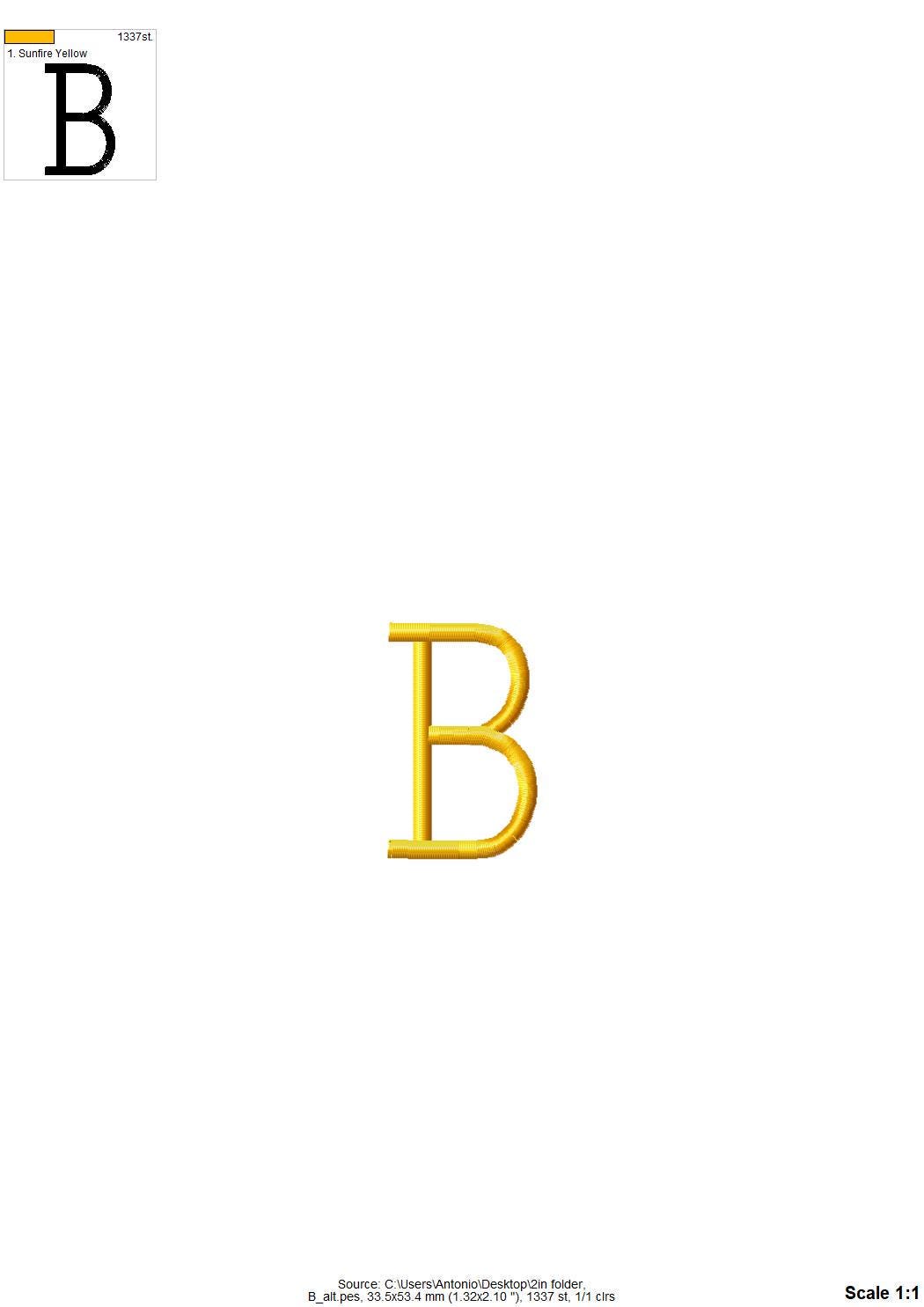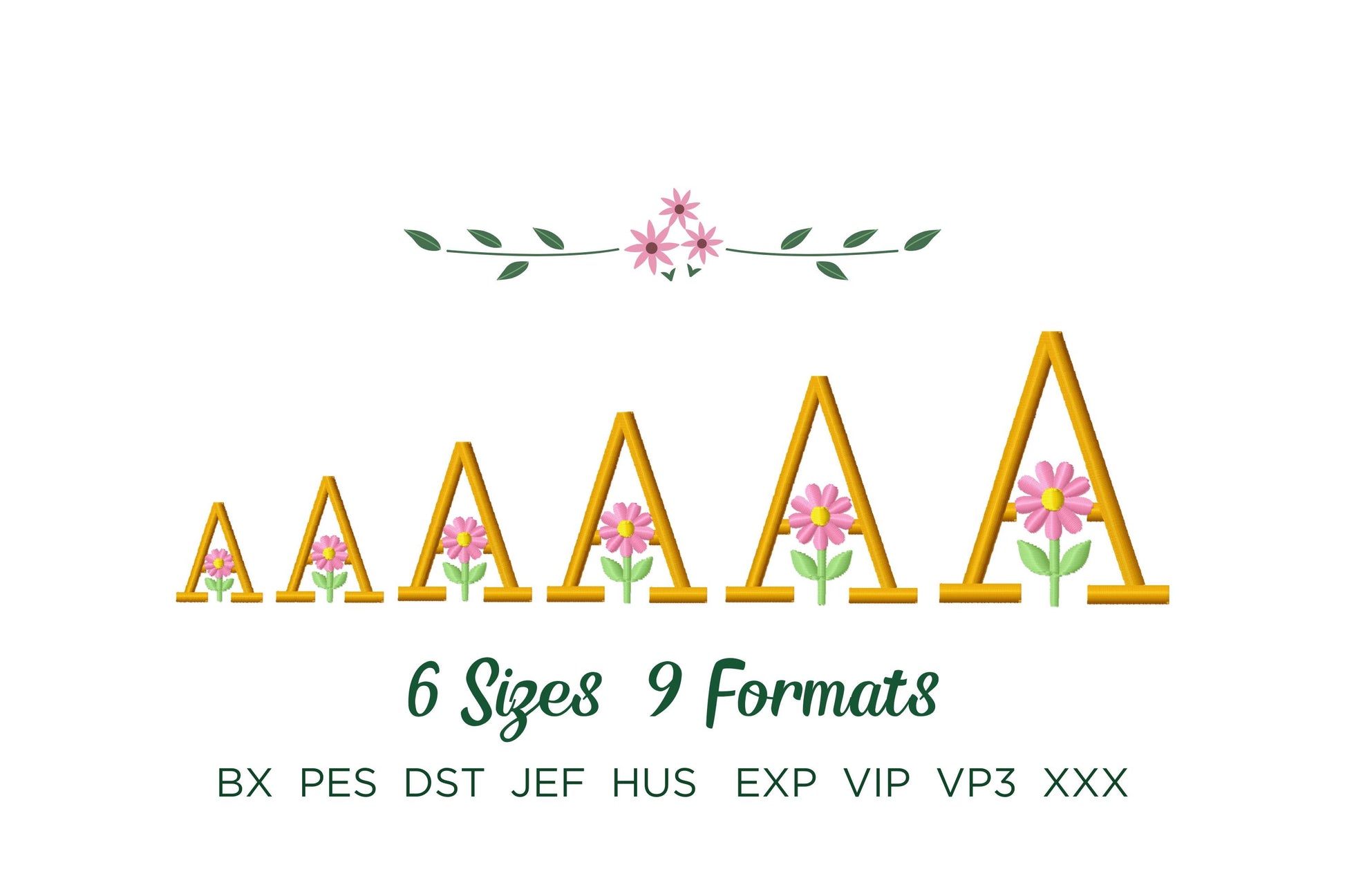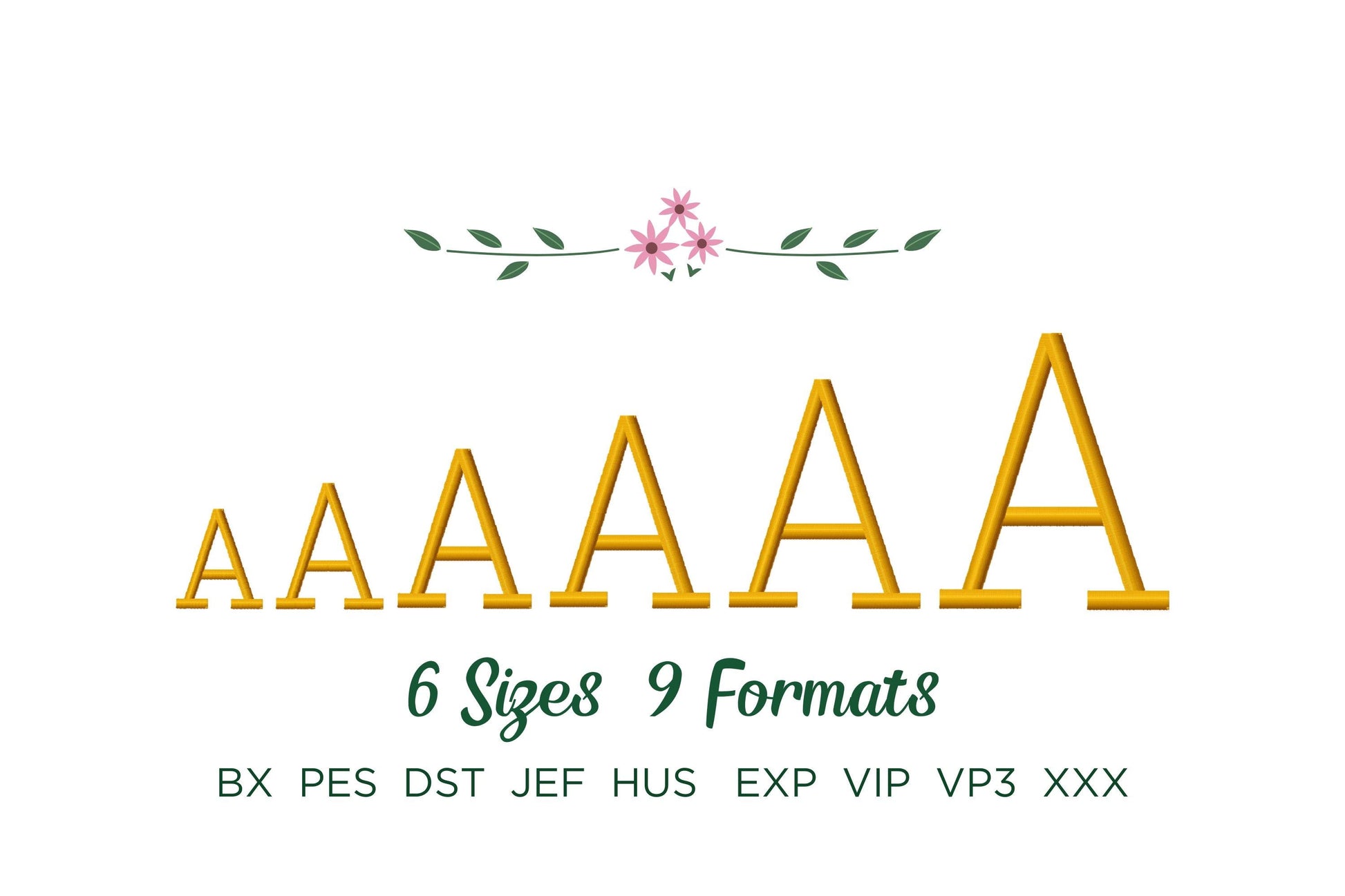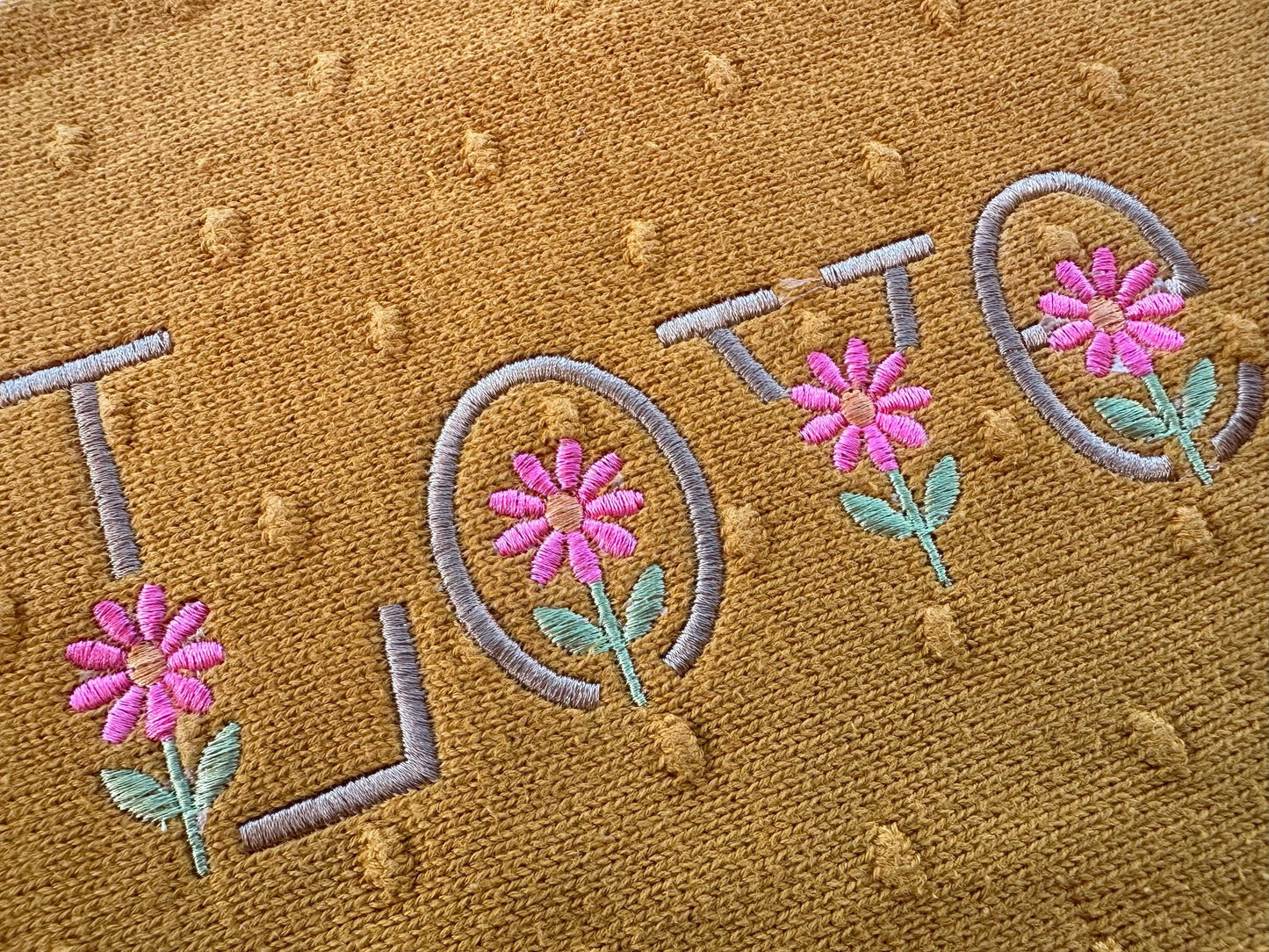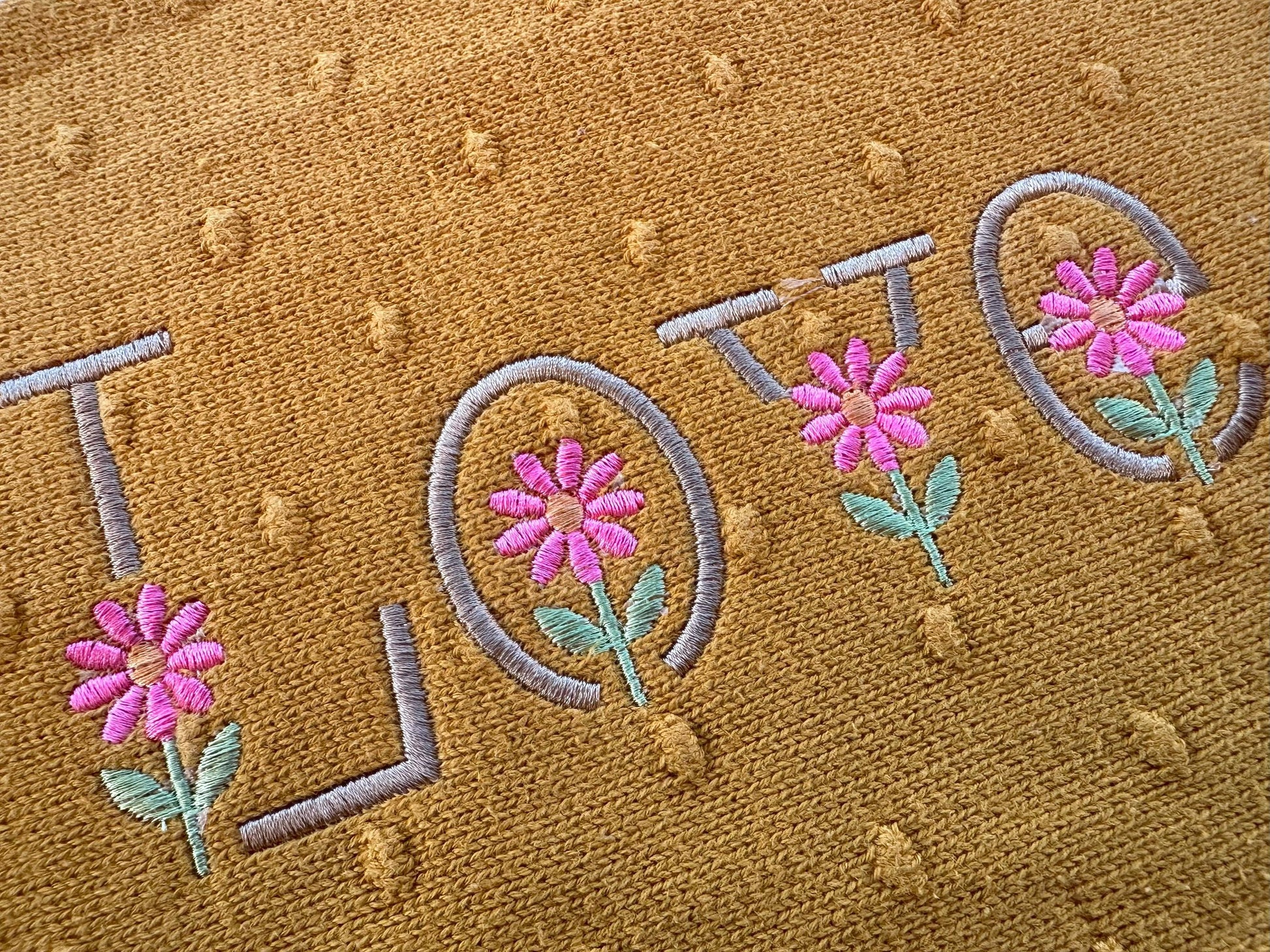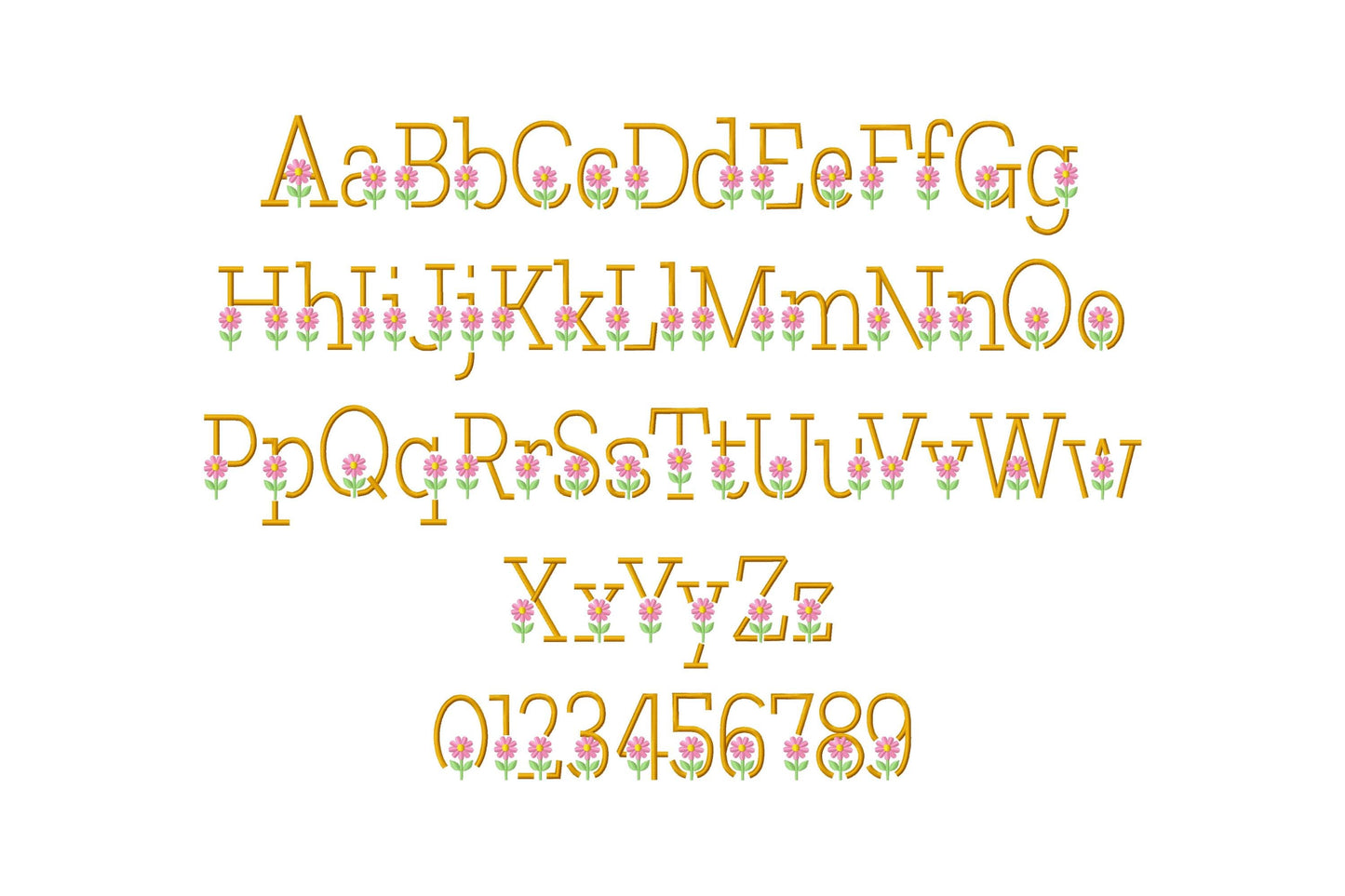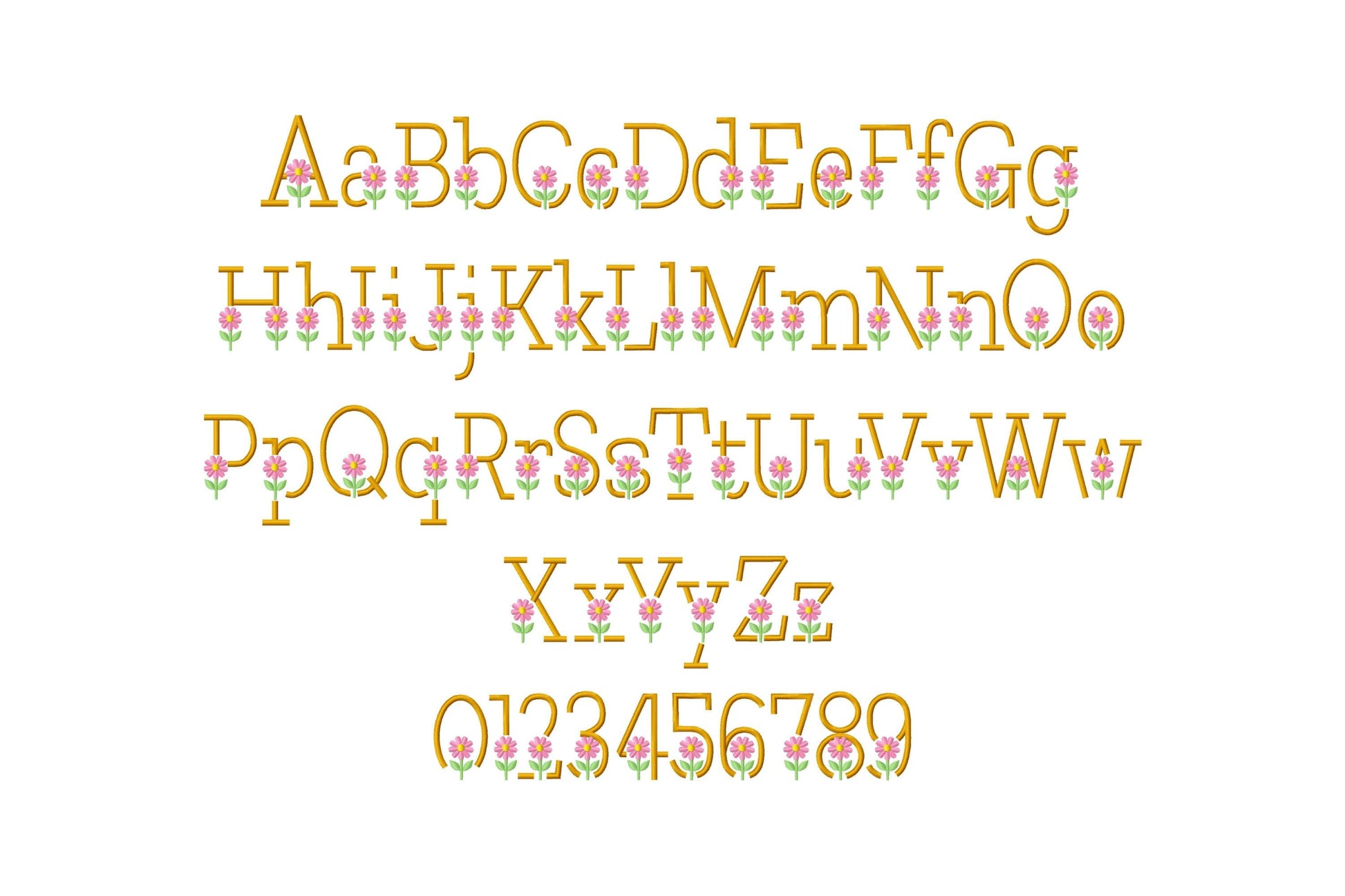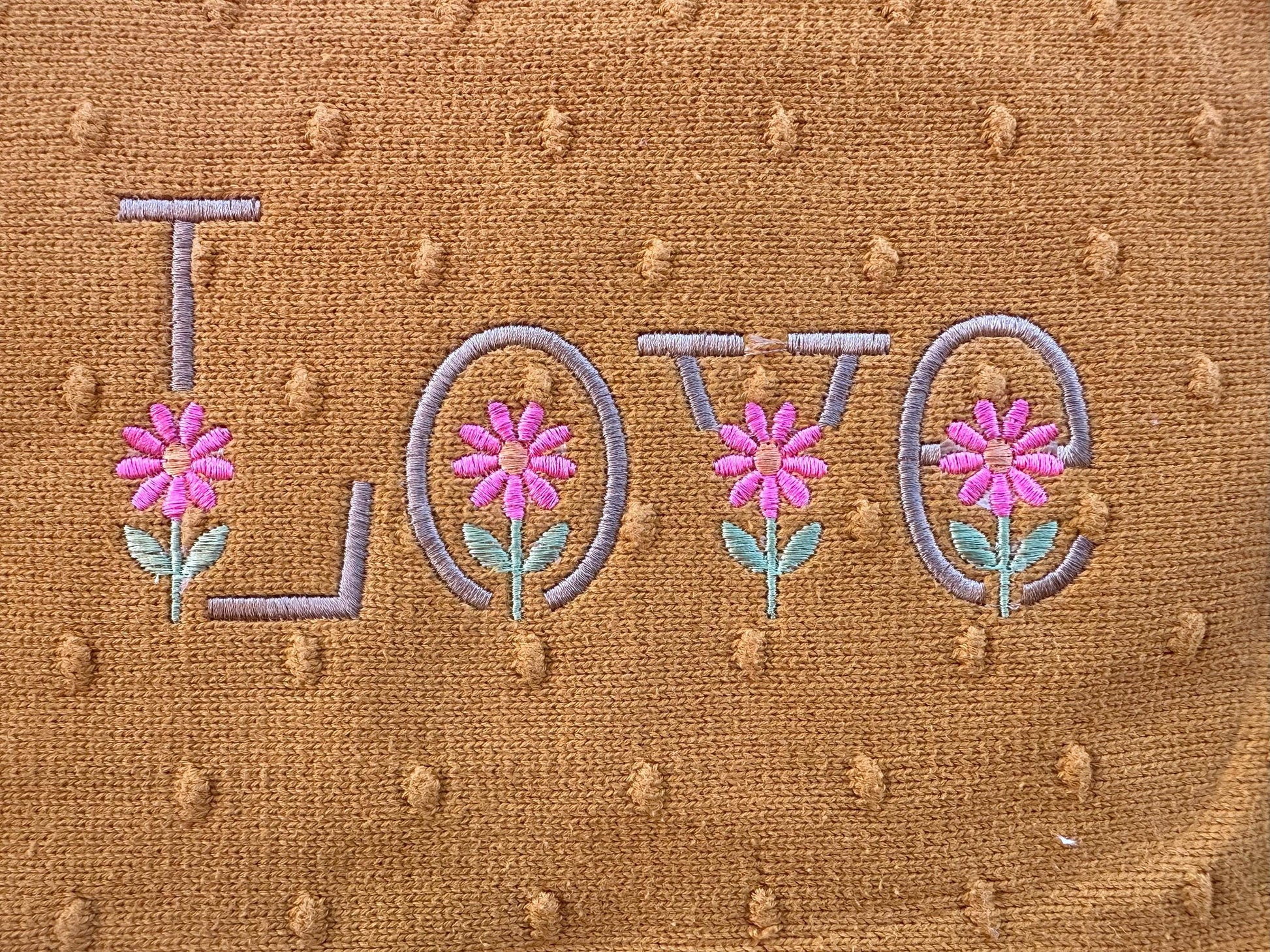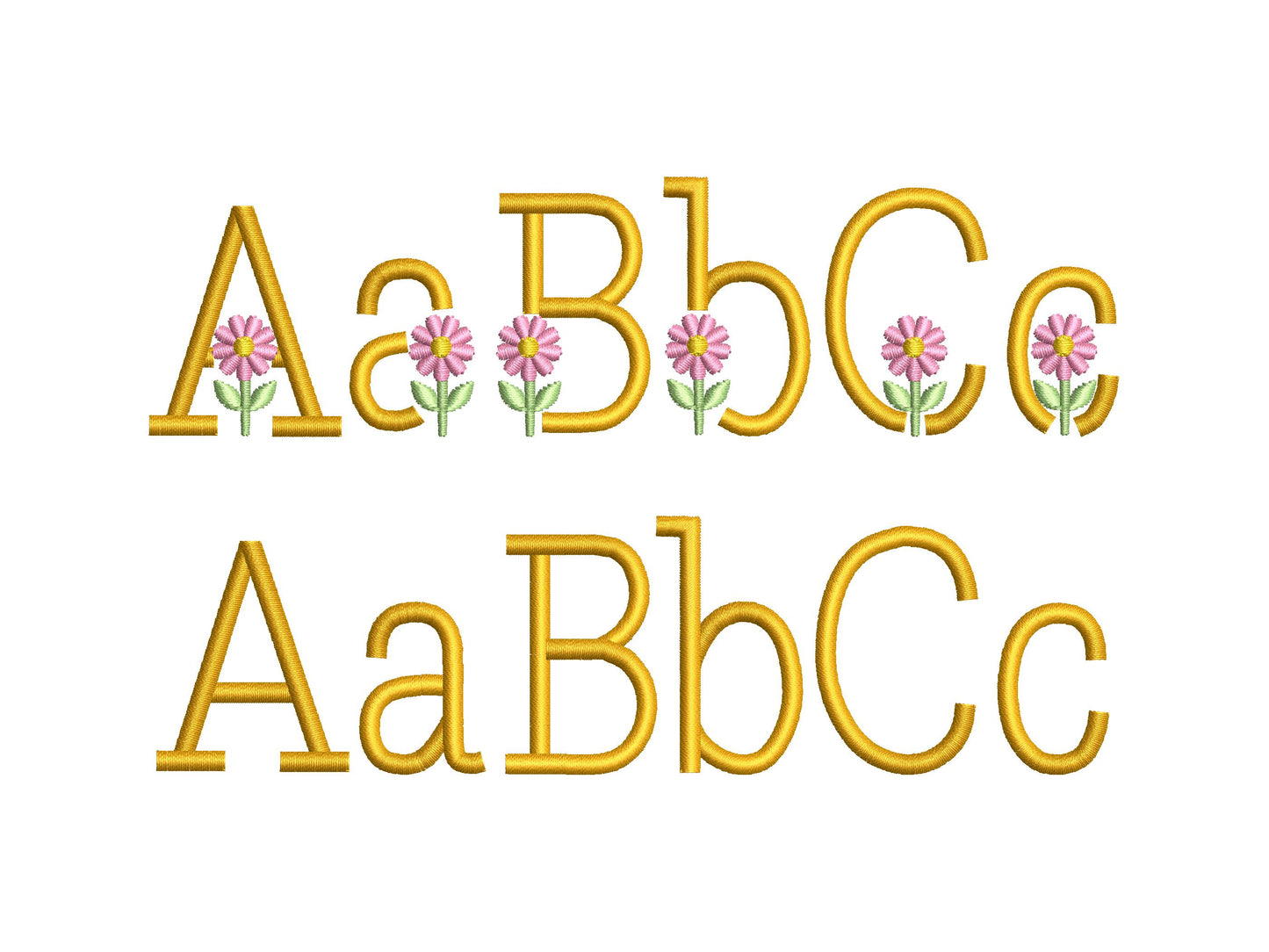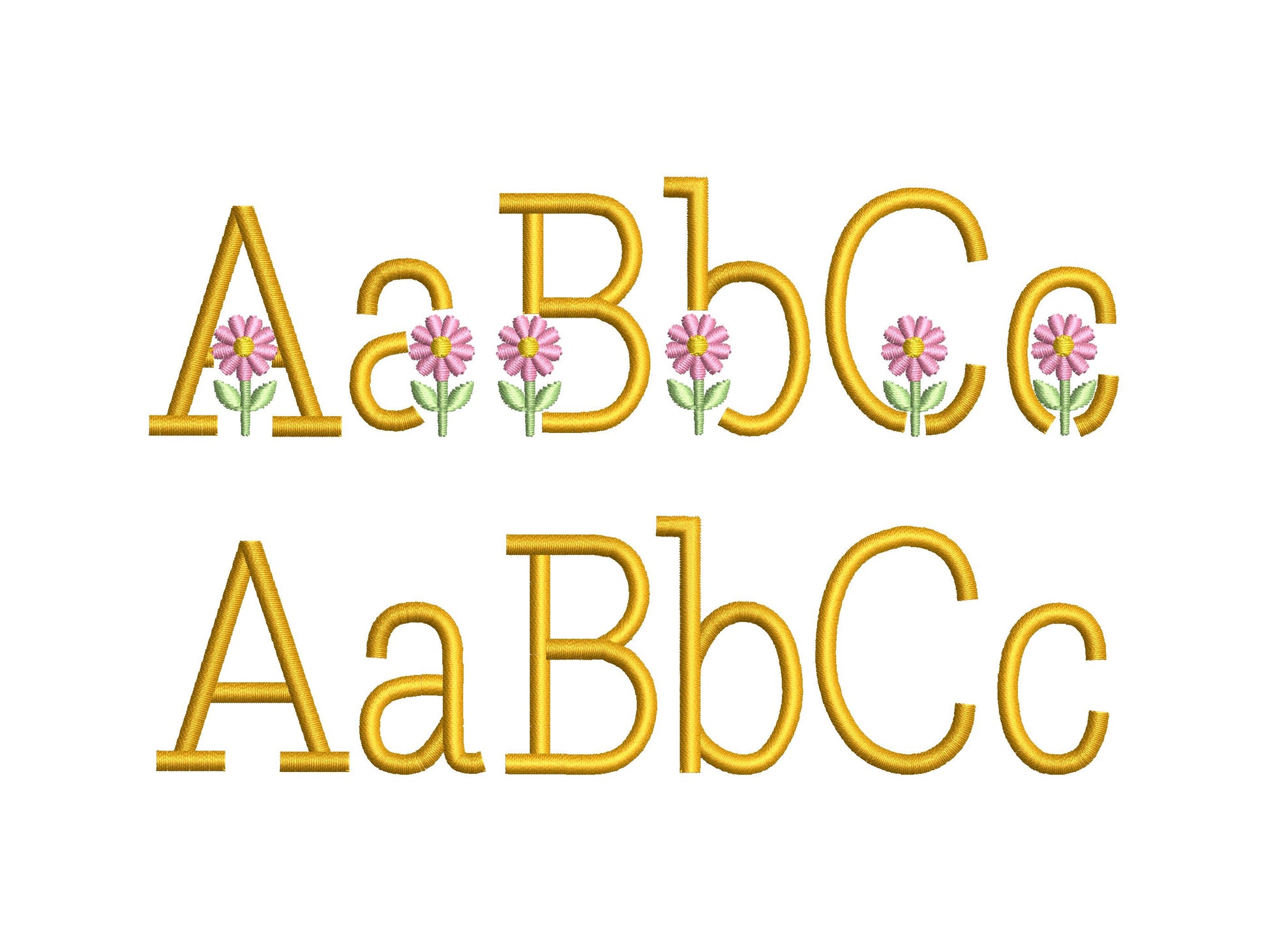
Love this font, it is so cute and girly. Stitched out perfect!
Or click to open the linkTwo satin stitch fonts in one set: one plain and one decorated with little spring flowers. Sweet for baby and kids' names and monograms.
Each font has uppercase and lowercase letters, numbers 0 to 9 and punctuation, in six sizes: 1, 1.3, 1.7, 2, 2.4 and 2.9 inches. Smooth satin stitch.
Love this font, it is so cute and girly. Stitched out perfect!
It stitched out very well
This is a pretty font. Stitched out clean.
Absolutely love this font. Will use the font all the time.
A cute design, love the daisies.
Love this font! Stitched perfect!